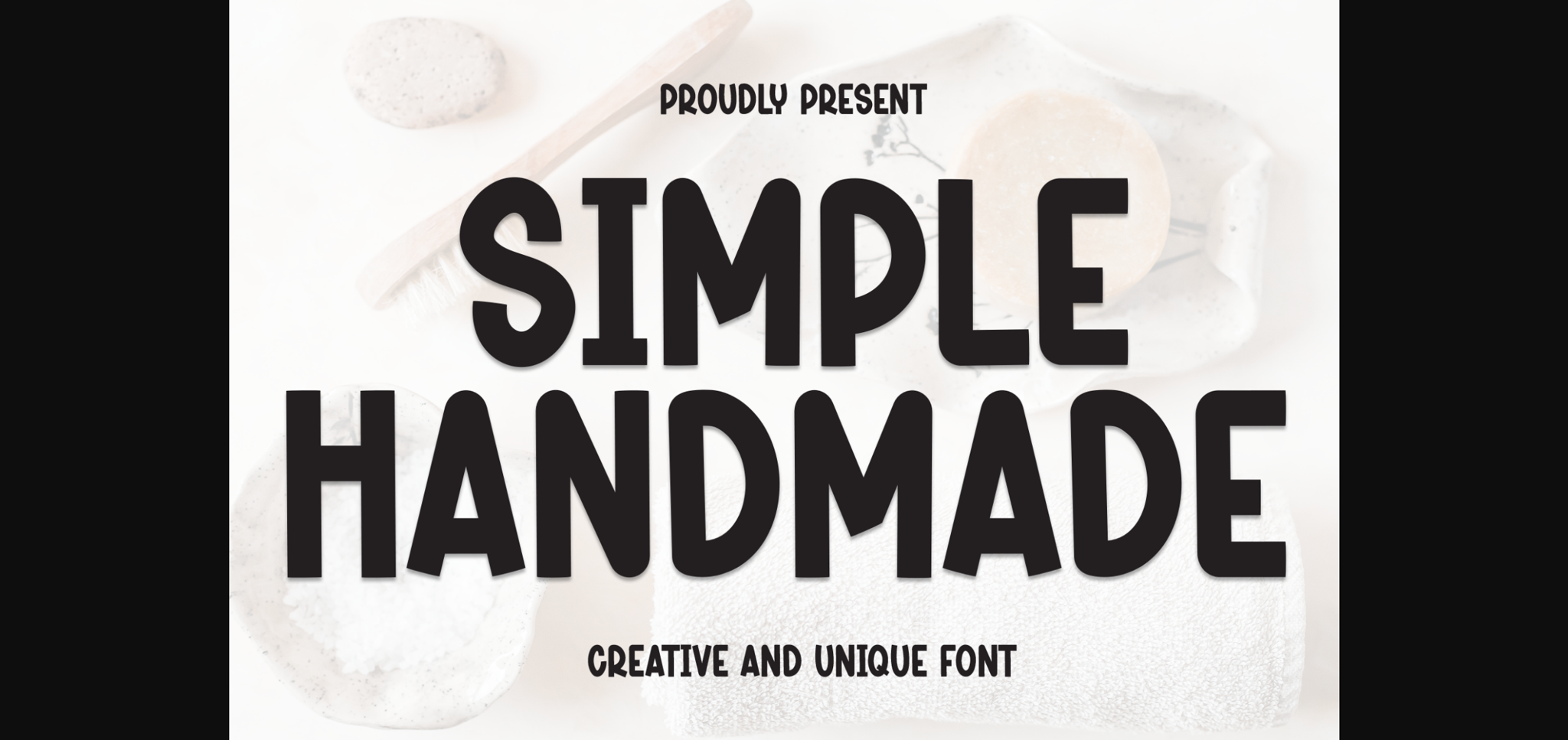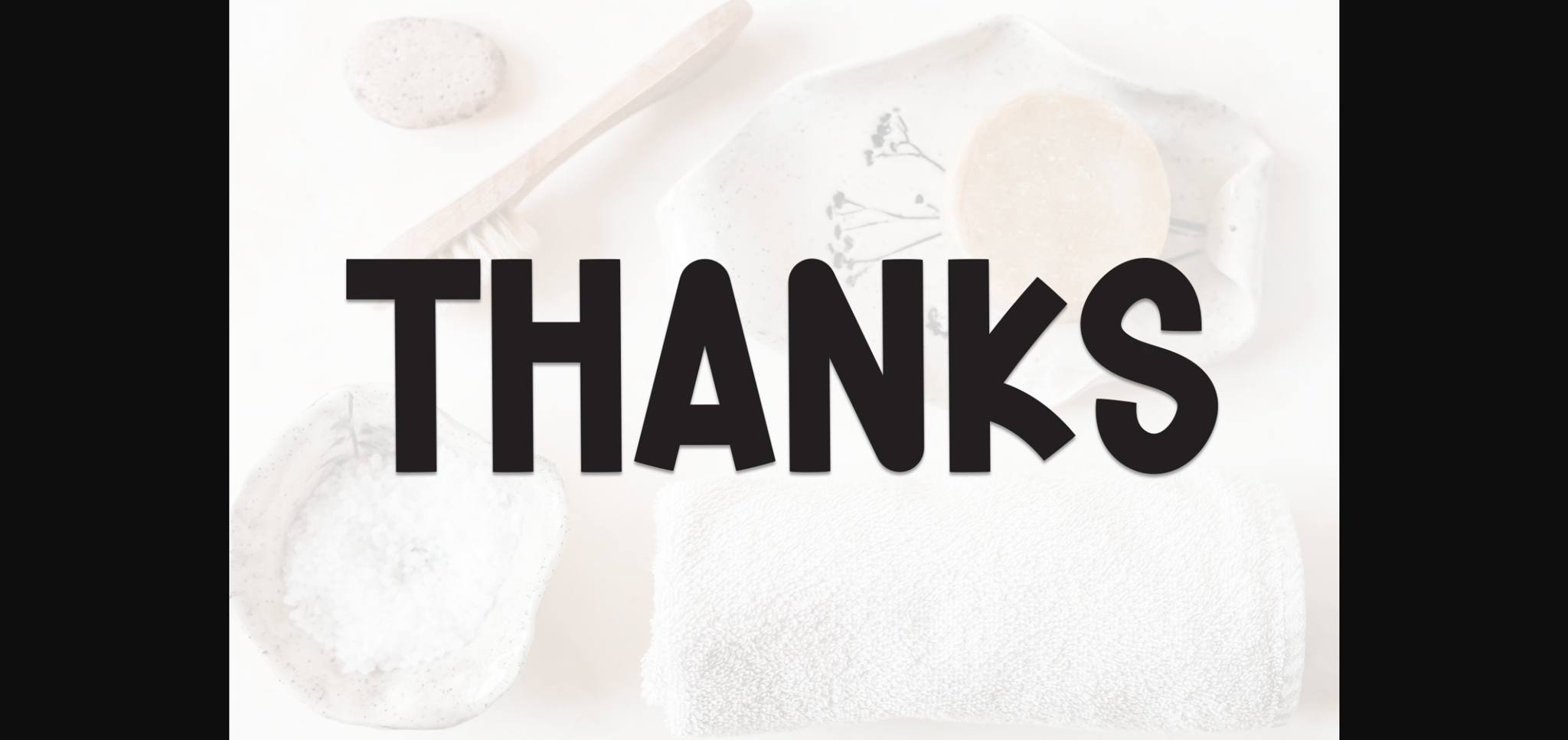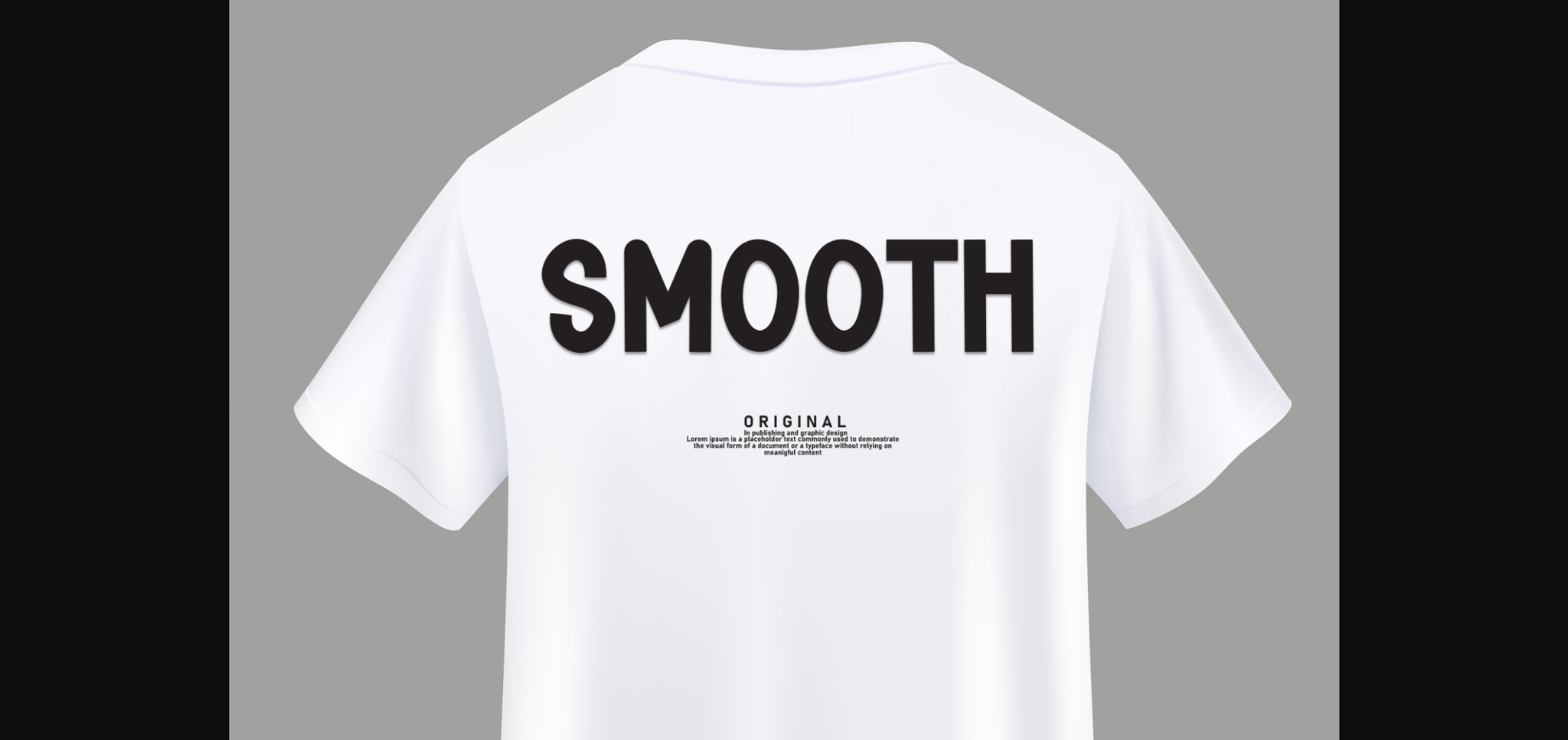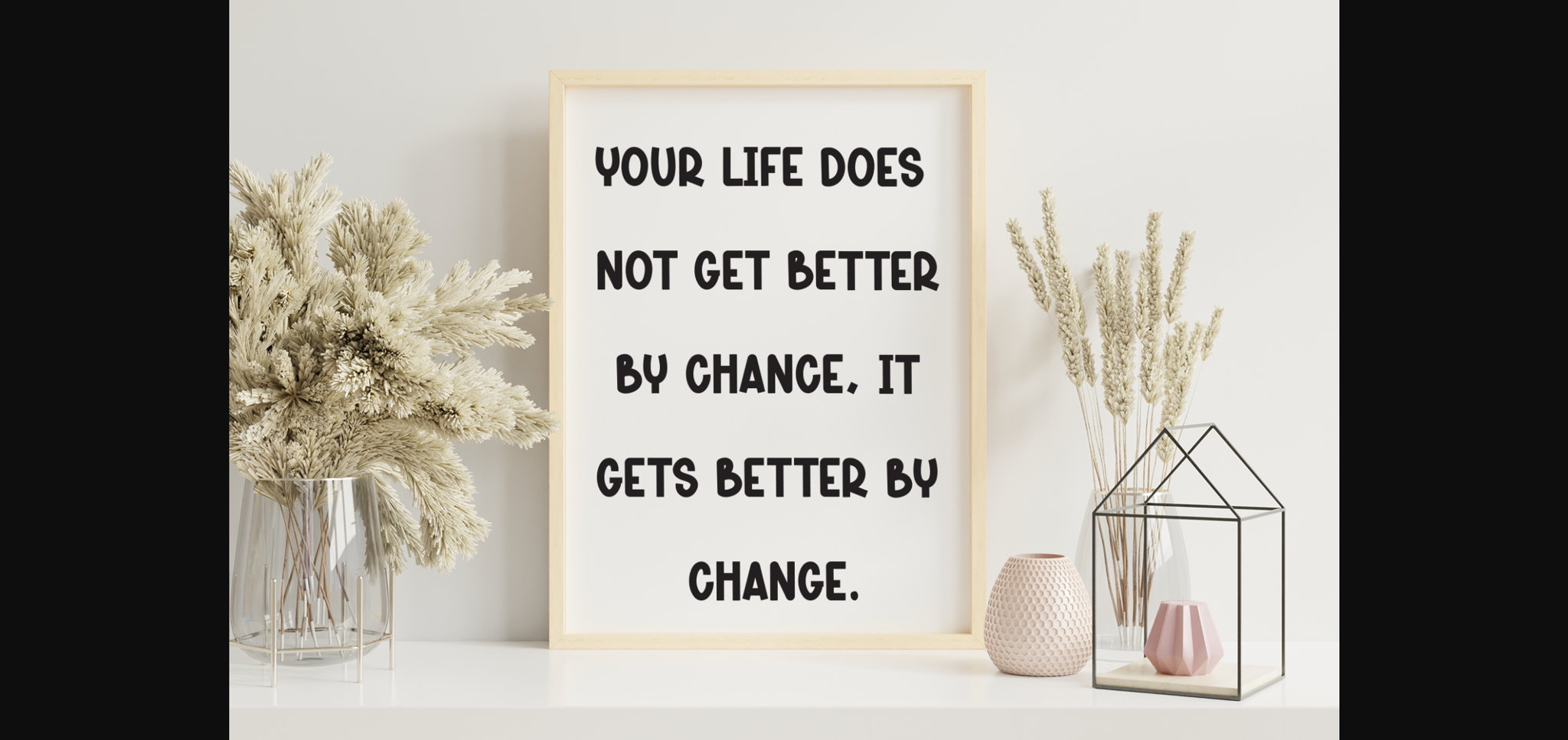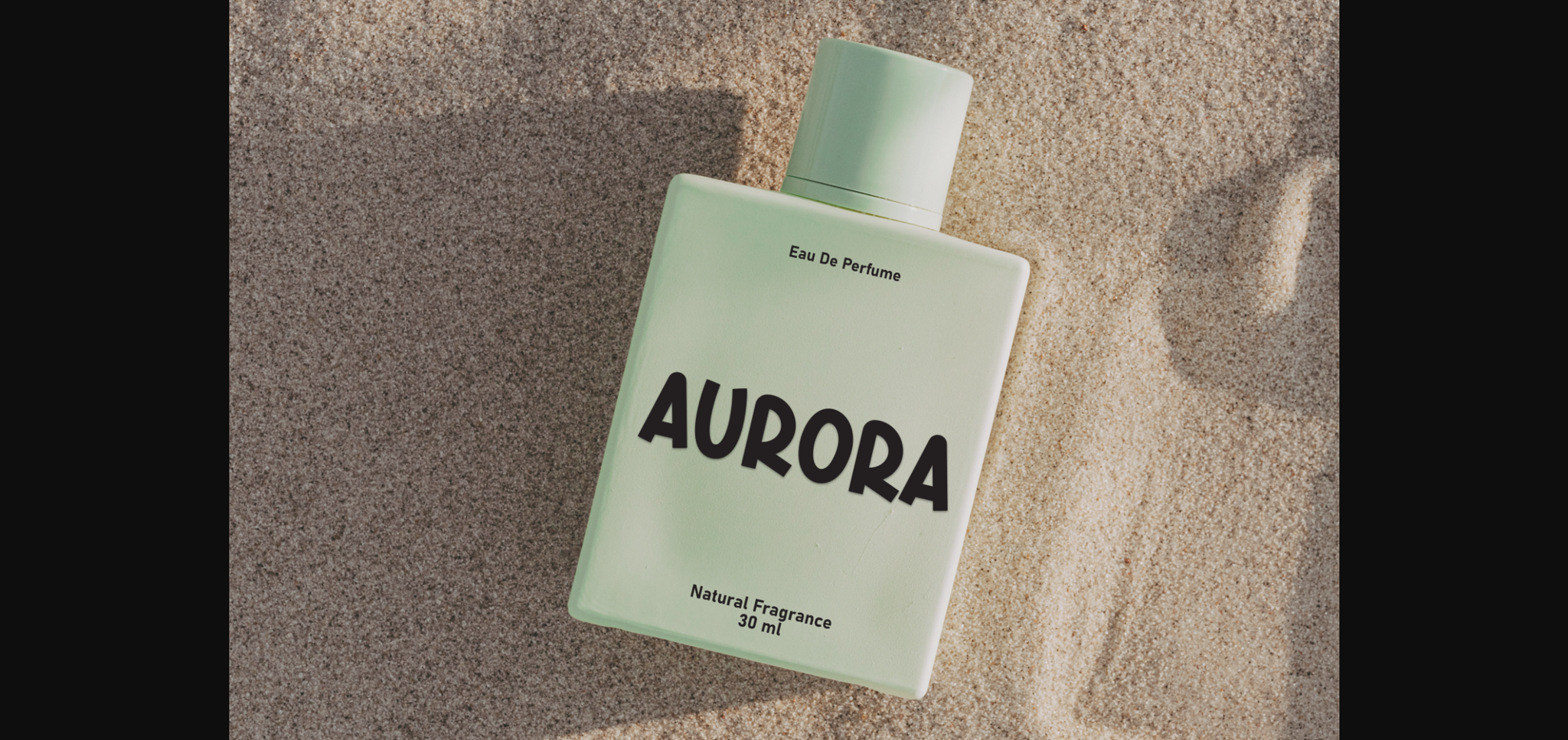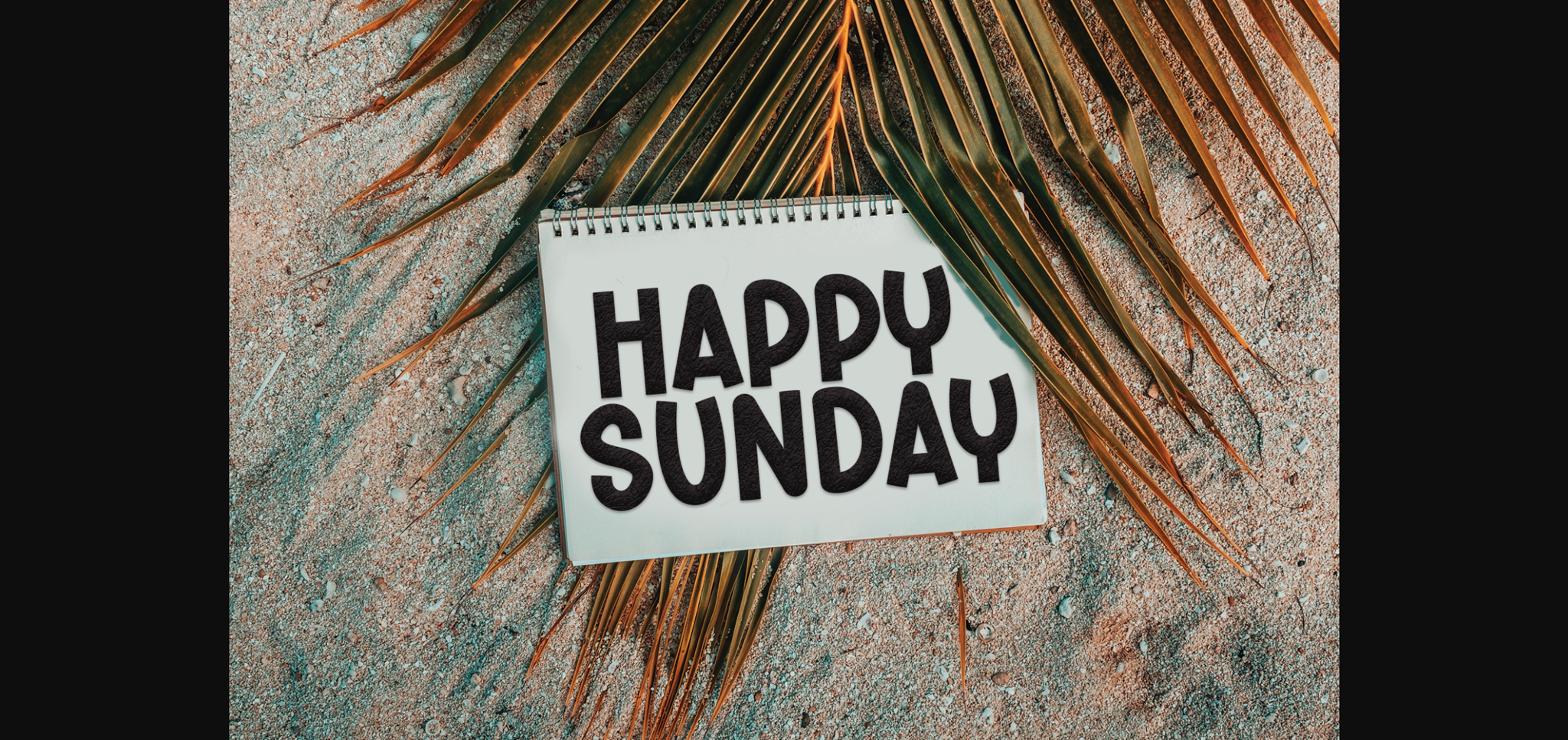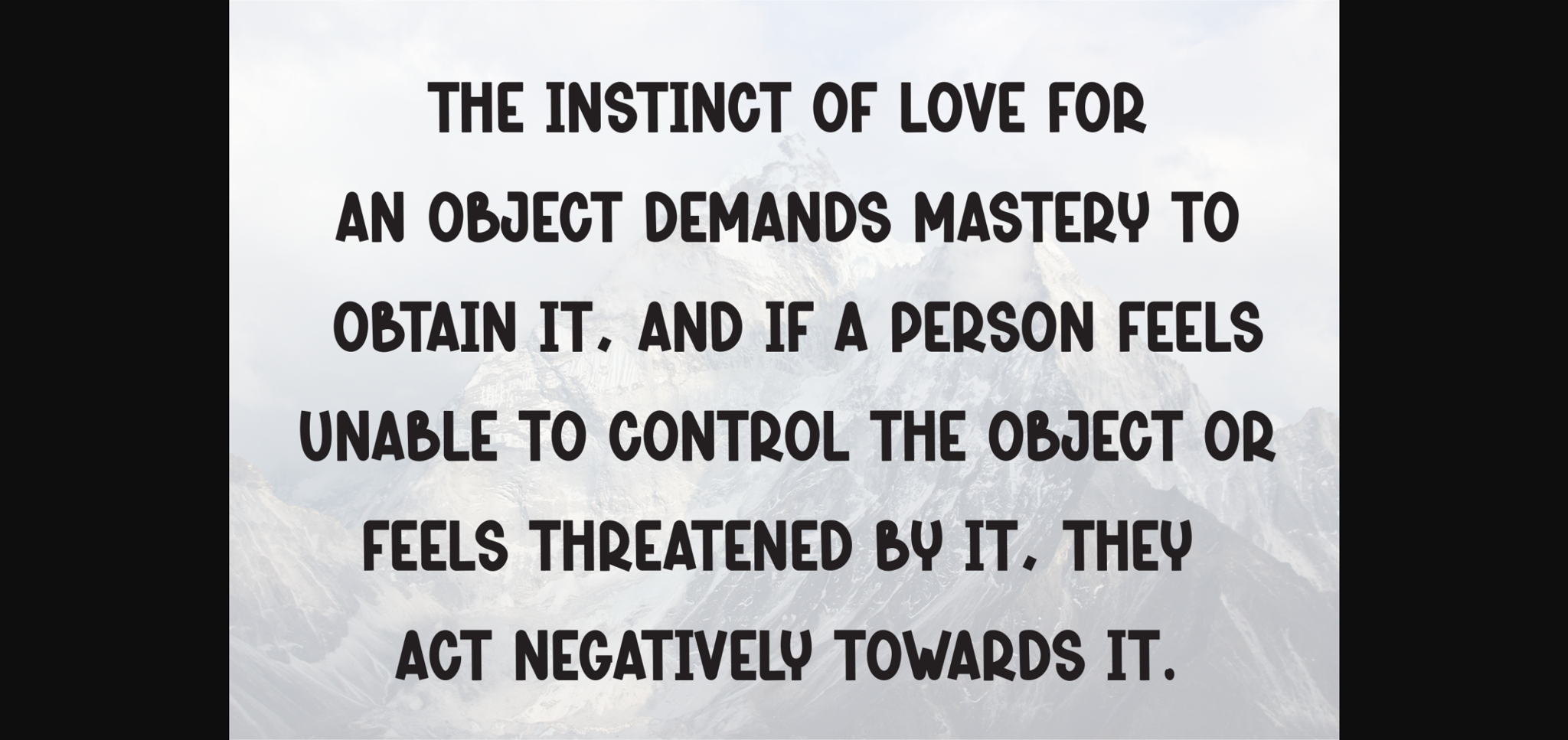
Simple Handmade Font
About Simple Handmade Font
Simple Handmade is a sweet and friendly sans-serif font. Cute yet versatile, this font is ideal for writing wedding invitations, cards, or any other design that might need a fresh touch!